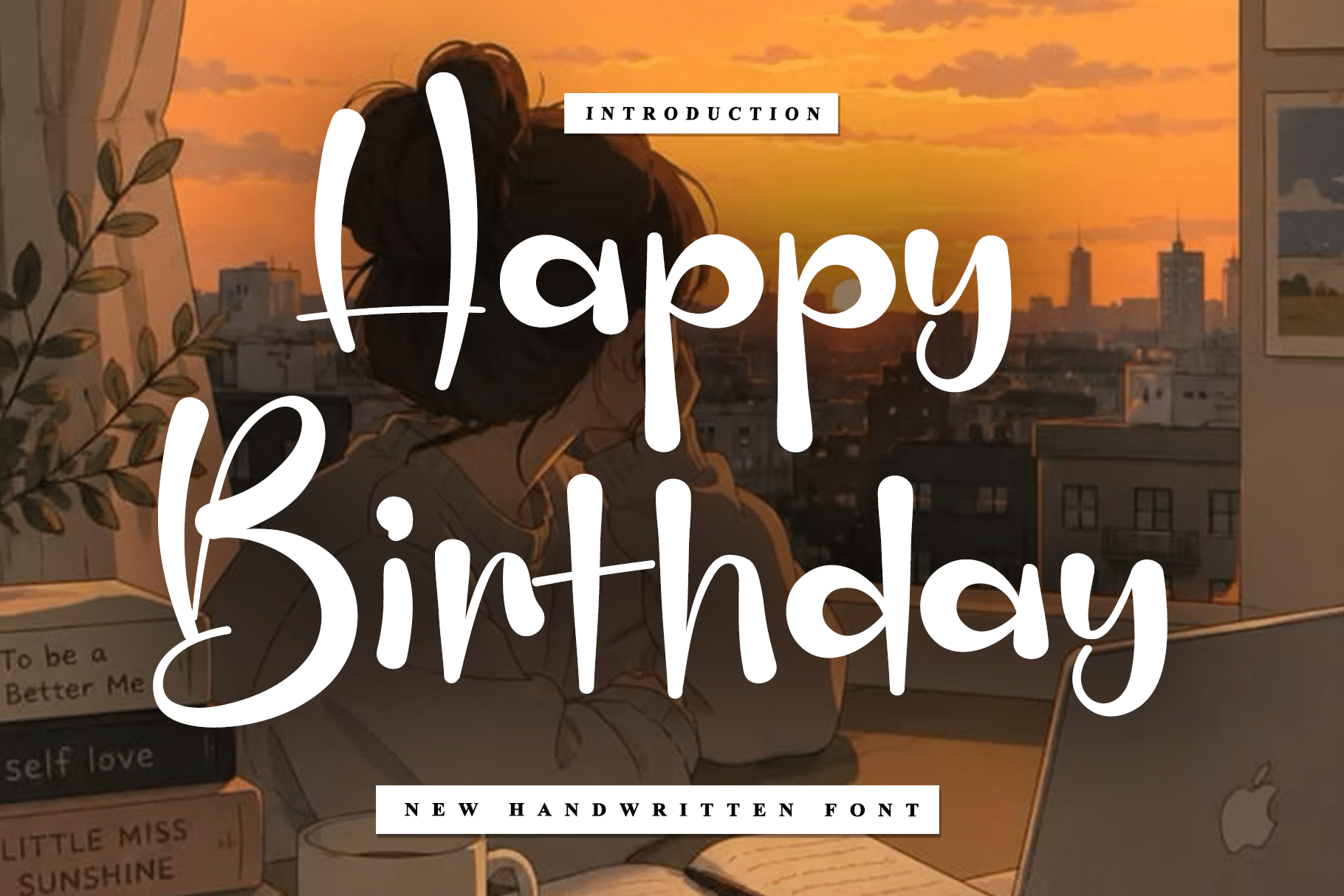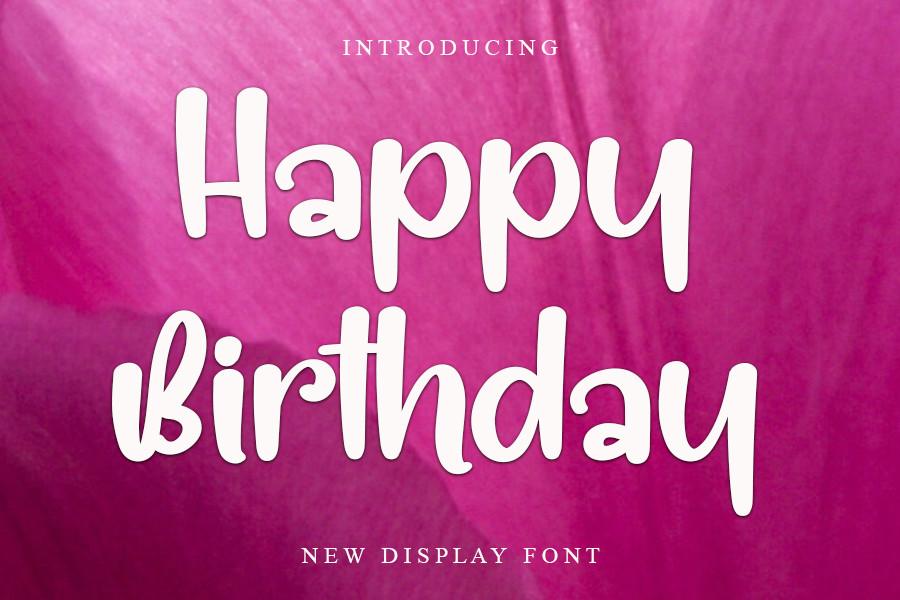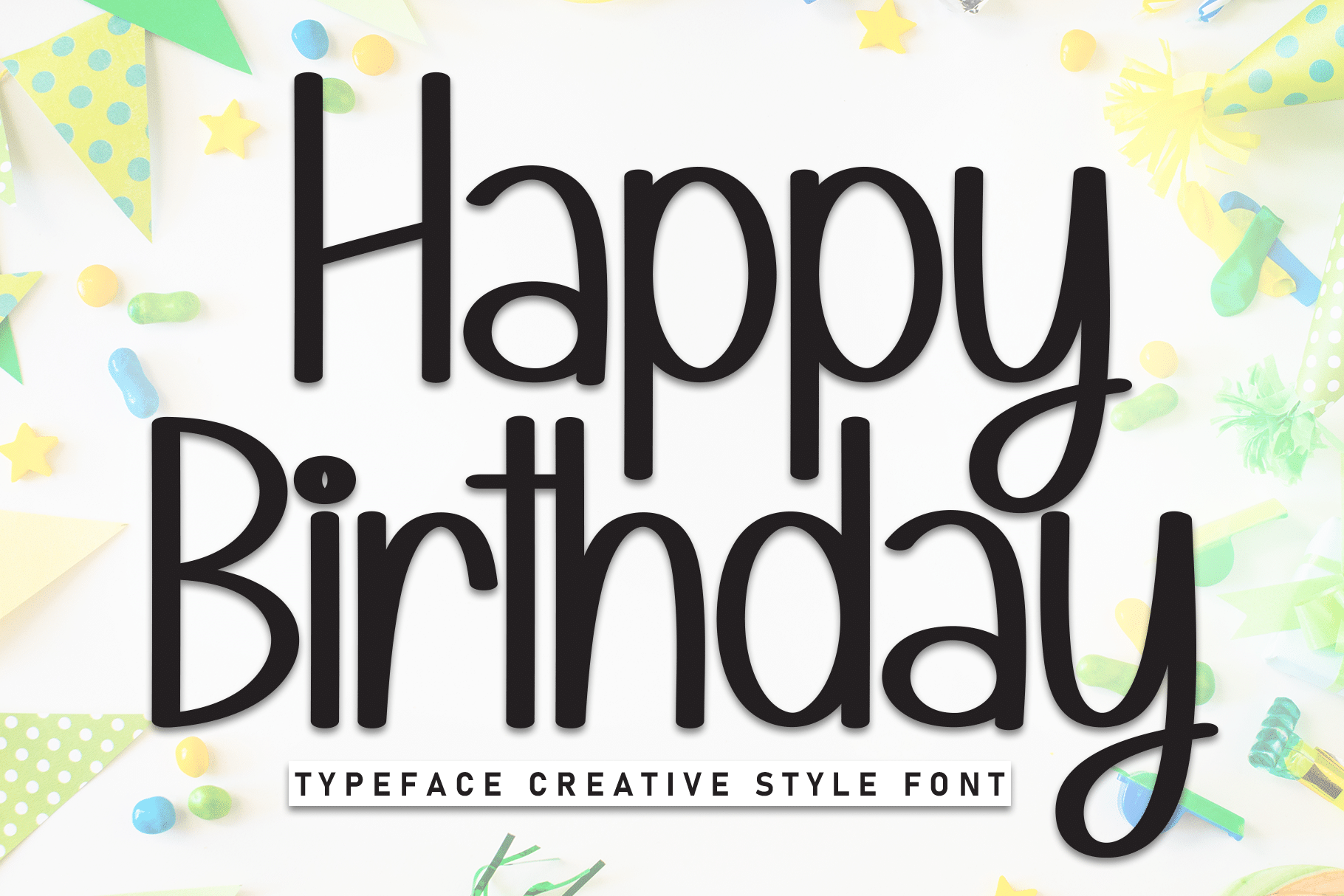
Happy Birthday Font: 21 Bold, Script and Balloon Styles for Cards, Cake Toppers and Banners
A happy birthday font has one job: make two short words feel like a celebration at first glance. The 21 fonts below cover the styles that actually get used: tall marker capitals for banners, heavy scripts for cake boxes and cards, slim calligraphy for quieter invitations, balloon and bubble letters for kids’ parties, and letter shapes built for cake toppers and candles.
Every font here was picked from Creative Fabrica and is shown with its own preview. They are grouped into five styles, and each entry says what the letters look like and where the font works best.
Bold Caps & Stacked Birthday Fonts
The most-saved happy birthday pins share one look: heavy, tall capitals stacked on two lines, with no decoration around them. These five follow that pattern and differ in weight, width and how hand-made they feel.
1. Happy Birthday Font by KC Production
Best For: banners, party signs, kids’ birthday shirts
Tall, narrow capitals drawn with a marker. The strokes are even but not perfect, so the lettering feels hand-made, relaxed and a little sporty instead of polished.
The narrow width lets “Happy” and “Birthday” stack tightly and fill a portrait card or a banner panel. Open the letter spacing slightly so the marker strokes stay separate at small sizes.
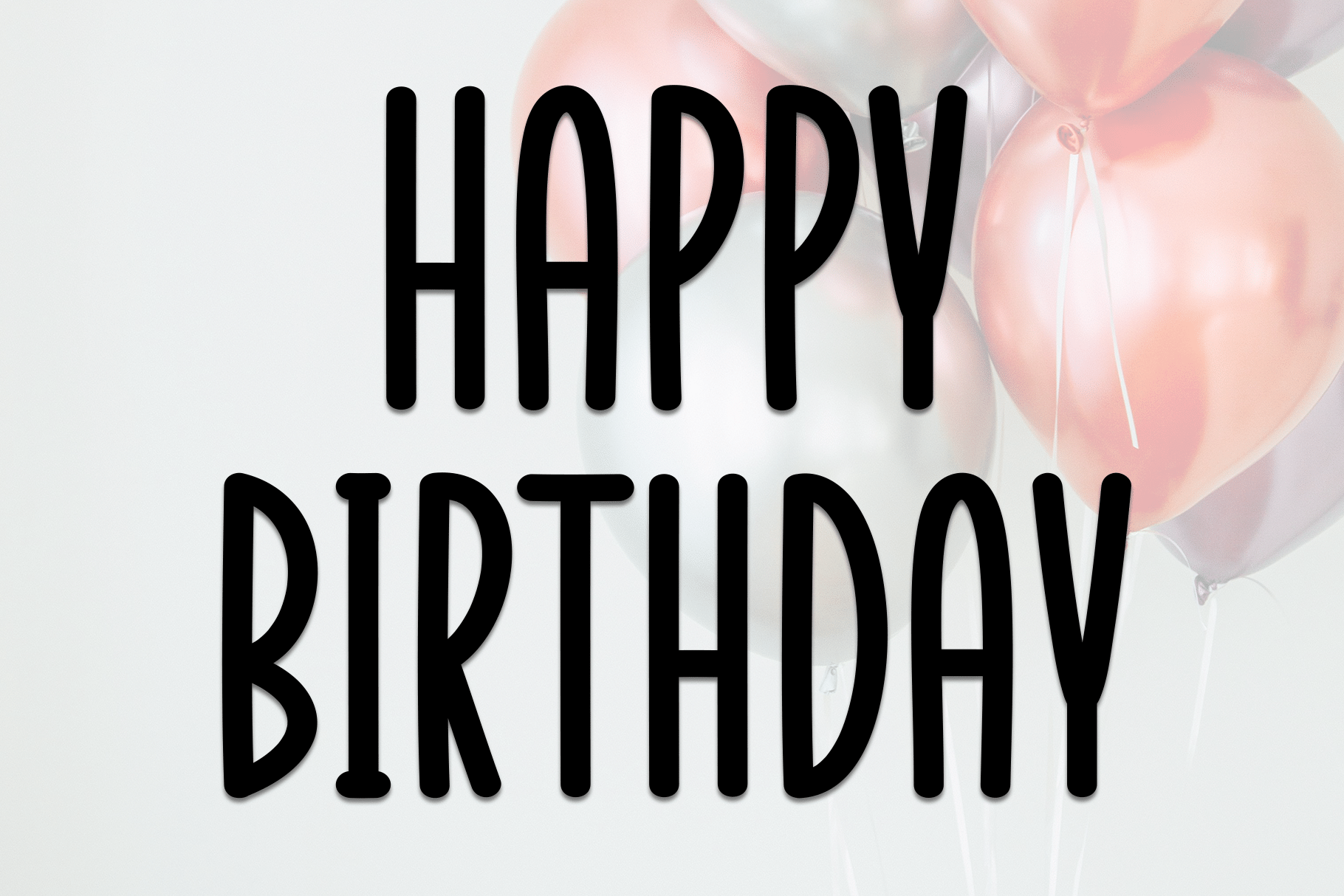
2. Happy Birthday Font by andikastudio
Best For: dark birthday posters, party invitations, social posts
Chunky, rounded letters that mix capital shapes with lowercase forms, such as the small a in “Happy”. That makes the baseline bounce a little, and the preview shows it in white on black.
The thick strokes hold up in white or a bright color on a dark background. Keep it to the greeting itself and set the date or name line in a plain sans, because the mixed letter shapes get busy in longer text.
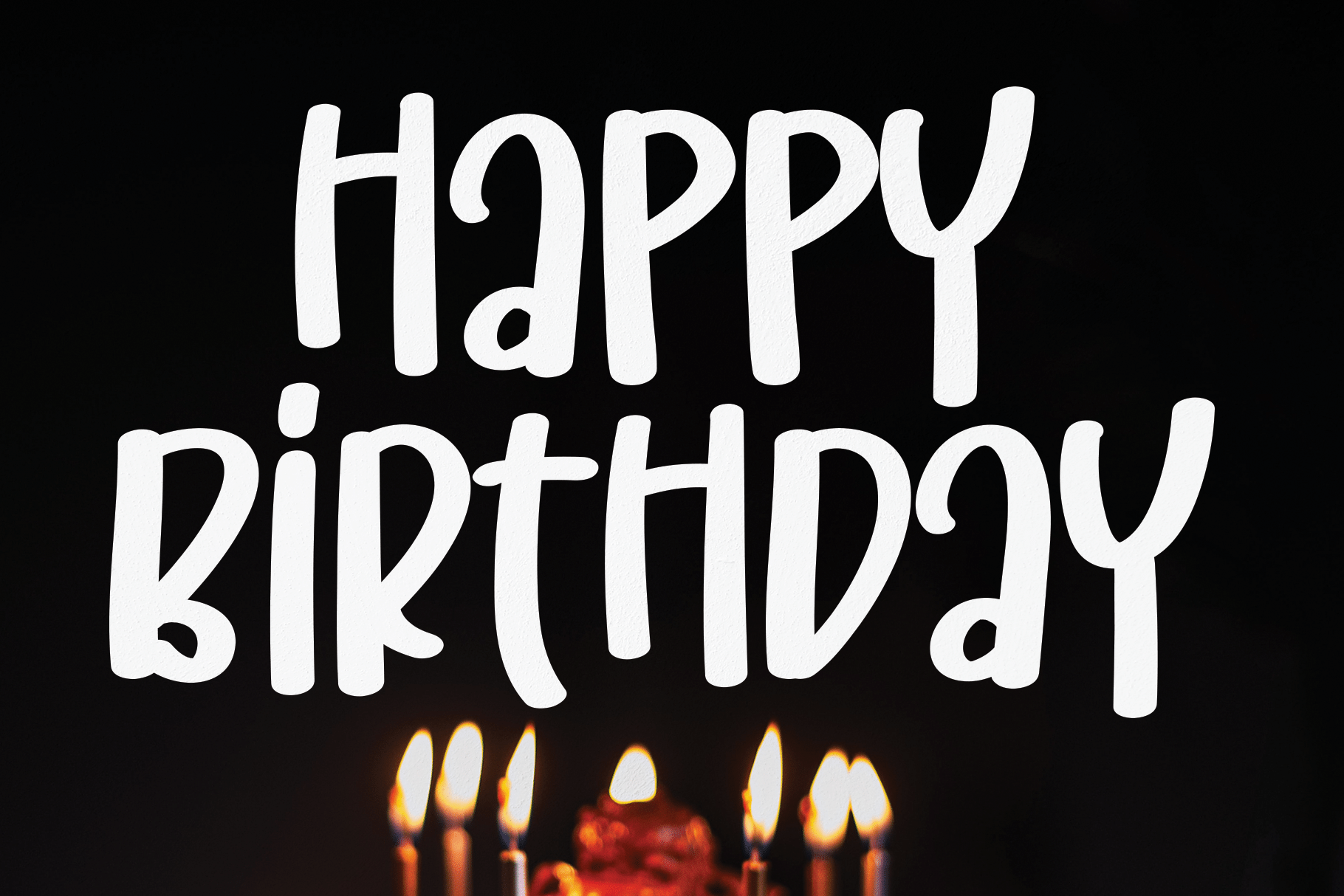
3. Happy Birthday Font by ABBAsalam
Best For: greeting cards, cake boxes, gift tags
Clean uppercase letters with thin to medium strokes, and a curled tail on the final Y that finishes the line. It is one of the calmest capitals in this group.
Use it in black on cream when a card should look tidy rather than loud. The curled Y is already the flourish, so leave the rest of the layout plain.
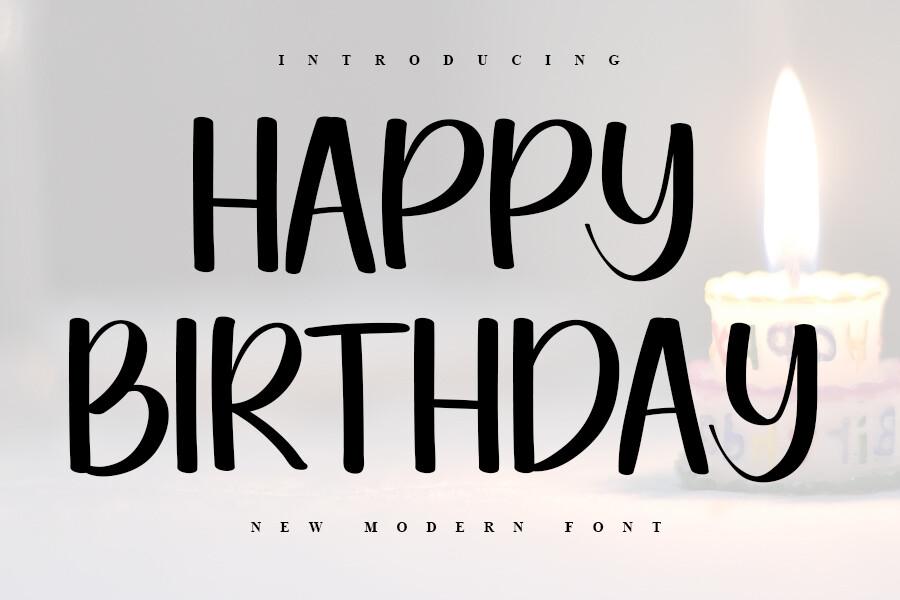
4. Happy Birthday Font by pinkmeca
Best For: kids’ party banners, posters, thank-you cards
Wide, heavy capitals with rounded ends. The weight is enough to stay readable over the busy watercolor party artwork in the preview.
Put it over illustrated backgrounds in one solid color. It reads from across a room, so it suits banners and posters better than small cards.
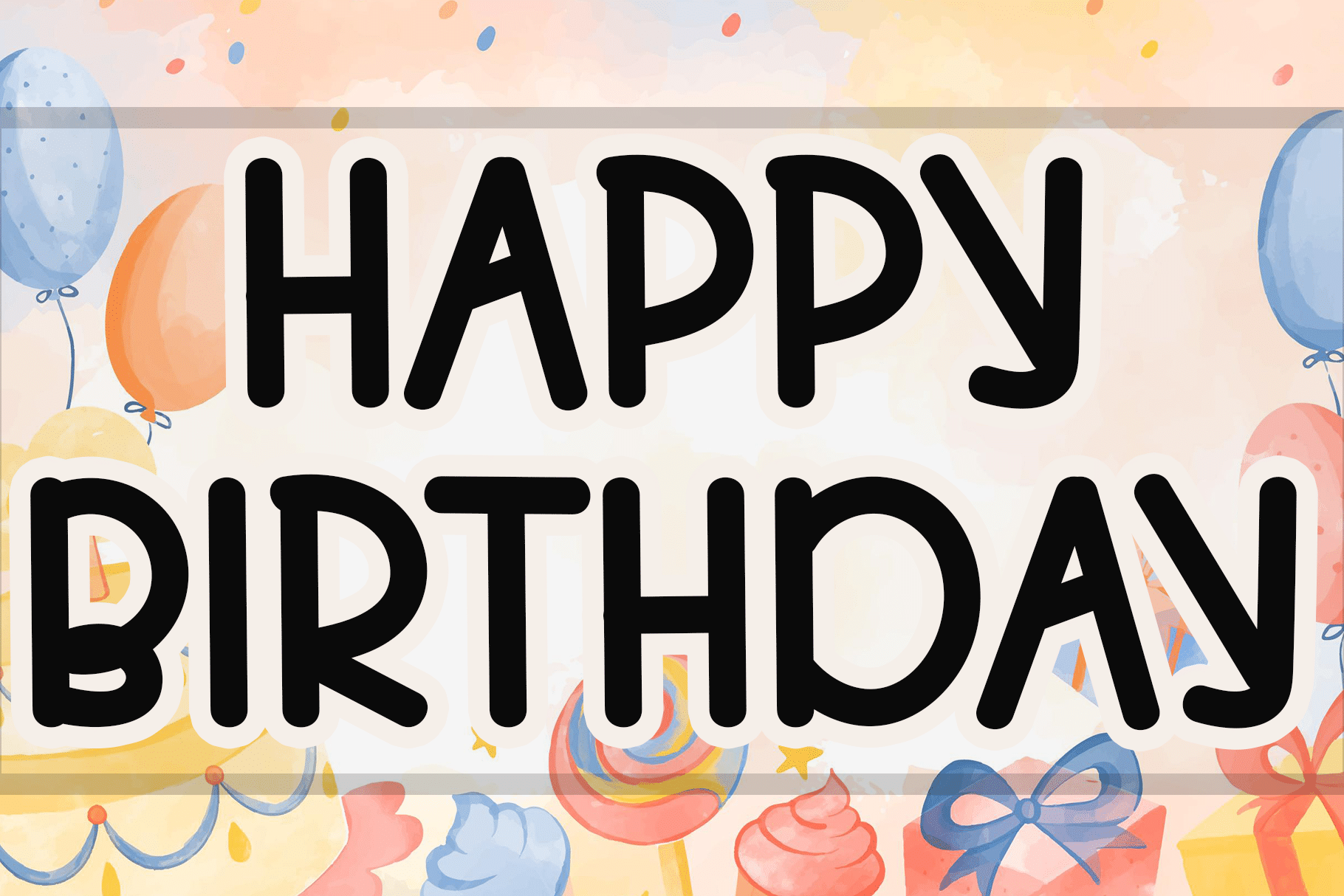
5. Happy Birthday Font by ONE DESIGN
Best For: hand-lettered cards, envelopes, classroom posters
Tall brush-marker capitals in blue with slightly uneven stroke widths and long stems. A soft shadow in the preview lifts the letters off the paper.
A saturated color on white paper shows it best. Keep the greeting on two lines and let the uneven strokes do the decoration.
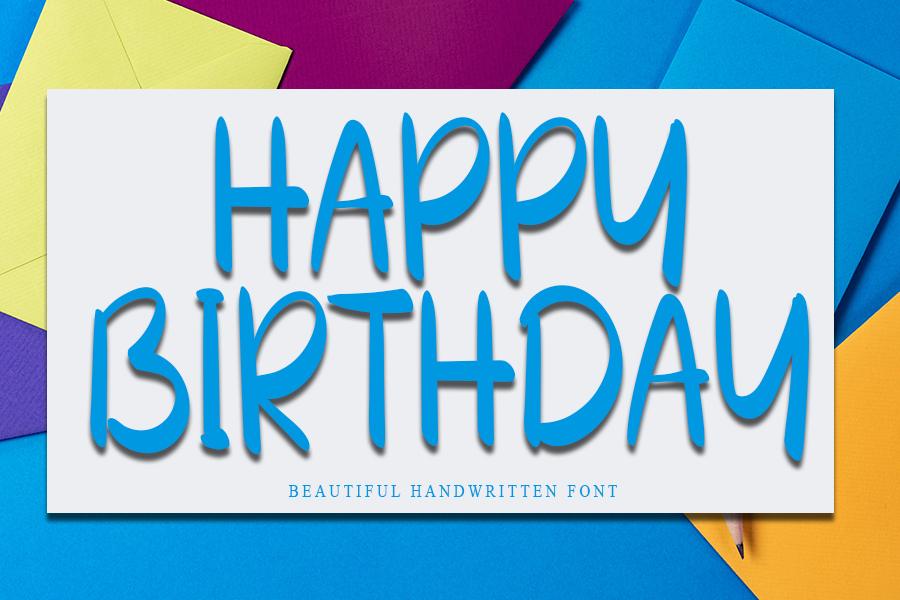
Bold Script & Brush Birthday Fonts
Heavier scripts and brush lettering give a birthday greeting movement. This group runs from formal high-contrast script to soft marker handwriting, so the mood changes from one entry to the next.
6. Happy Birthday Font by ABBAsalam
Best For: cake boxes, birthday cards with a formal touch, gift wrap
A black script with strong thick-to-thin contrast, tall looped capitals H and B, and connected lowercase letters. It looks closer to sign painting than to everyday handwriting.
The contrast needs size to show, so set it large and let it carry the whole design. A small line in spaced capitals underneath is enough support.
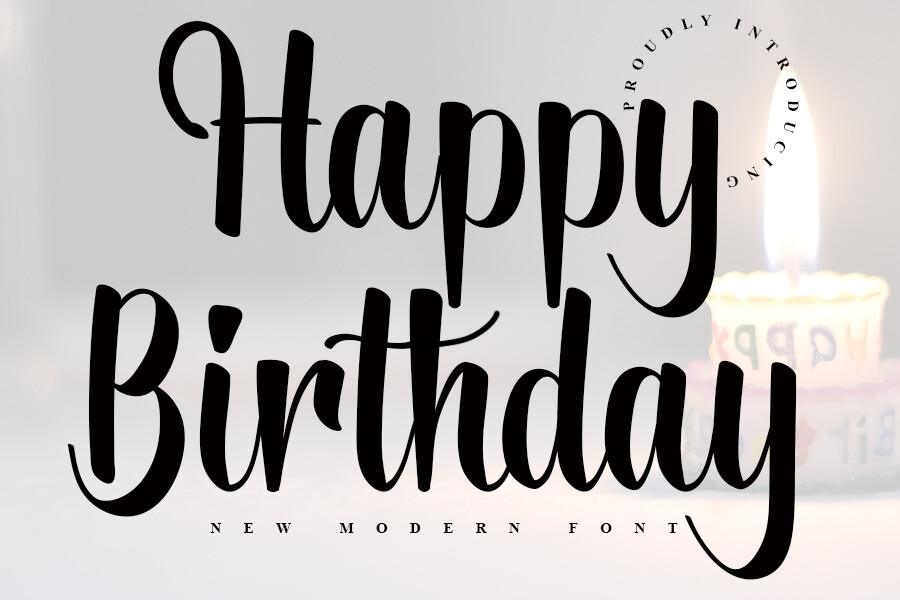
7. Happy Birthday Font by Black line
Best For: dark party invitations, celebration banners, social posts
A slanted white brush script with a small “happy” over a large capital B. The strokes taper at the ends, which gives the line speed and energy.
Use a light color on a dark background or a darkened photo, as in the preview. It already has movement, so do not add a second script beside it.
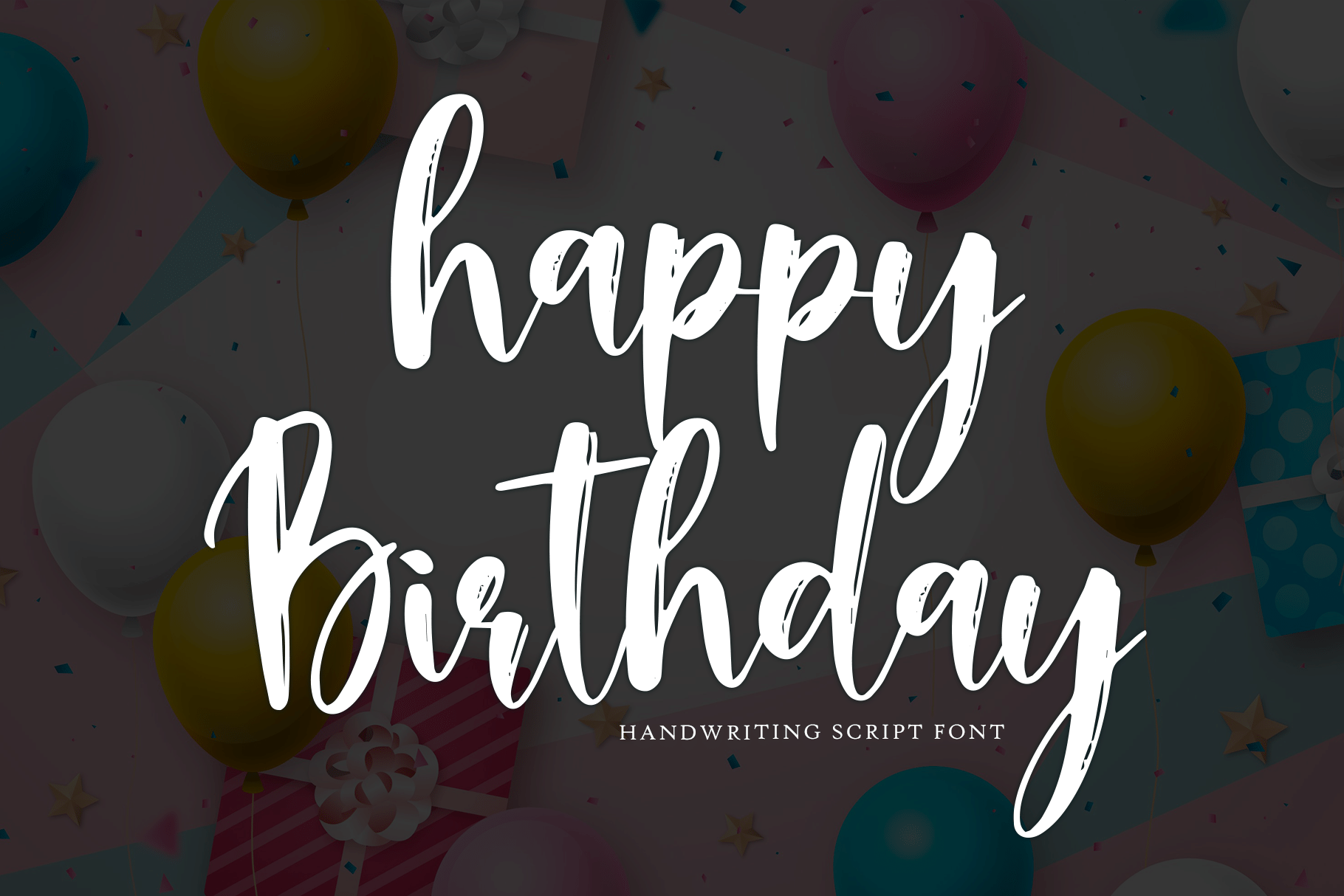
Where to Start
If you only try three, take one from each direction: Happy Birthday Font by KC Production for bold banner lettering, Happy Birthday Font by Black line (number 14) for a refined card, and Bouncy Balloon Font by putracetol for a kids’ party. Once you see how each behaves in your own layout, the rest of the list is easy to narrow down.